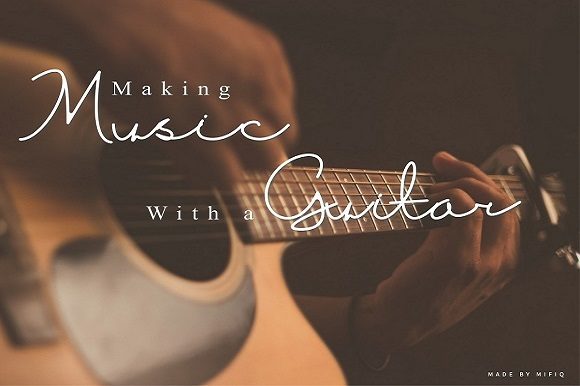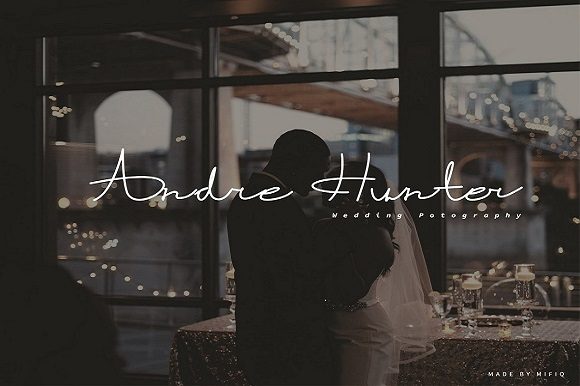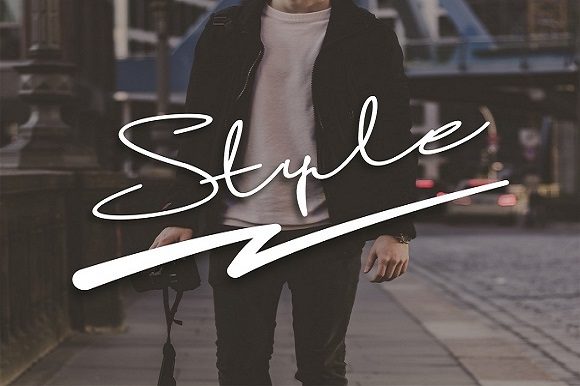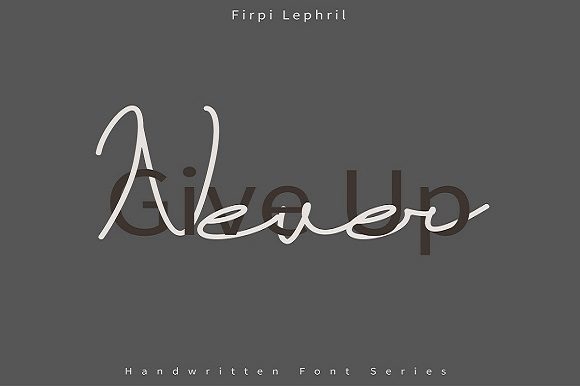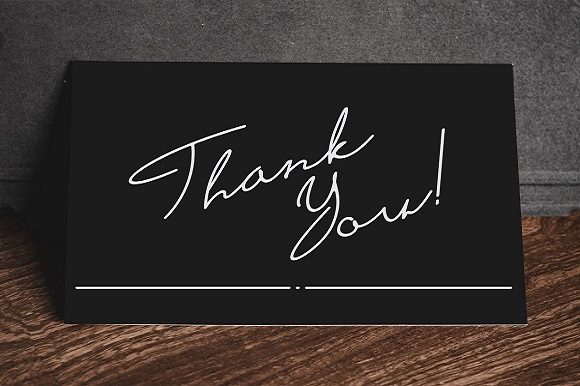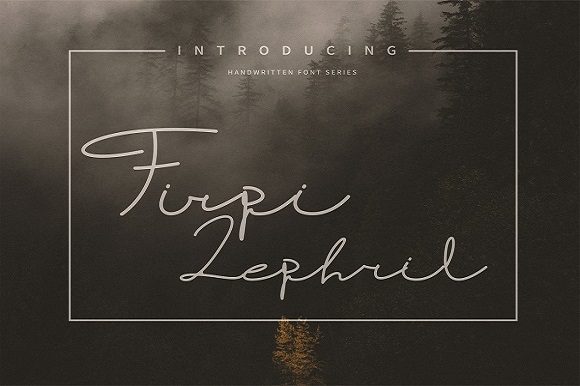
Firpi Lephril Font: Elevate Your Designs with Elegance and Timeless Style
In the world of typography, few fonts manage to capture the essence of elegance and timelessness. However, Firpi Lephril stands out as a beacon of sophistication, offering a flowing handwritten style that is both distinct and captivating. This beautiful font is designed to add a touch of class to your favorite projects, making it a must-have for designers and crafters looking to elevate their creations.
The Essence of Firpi Lephril
Firpi Lephril is more than just a font; it’s an experience. Its flowing lines and elegant touch evoke a sense of luxury and refinement, perfect for projects that demand a high level of sophistication. Whether you’re working on a branding project, a wedding invitation, or a packaging design, Firpi Lephril is sure to make a lasting impression.
Key Features of Firpi Lephril
- Elegant and Flowing Script: Firpi Lephril boasts a beautiful, cursive script that flows effortlessly across the page, creating a sense of movement and fluidity.
- Distinct and Timeless Style: Its unique and classic design ensures that your projects stand out from the crowd, while also remaining relevant for years to come.
- Versatility: Firpi Lephril is incredibly versatile, making it suitable for a wide range of projects, from digital designs to print materials.
- Easy to Read: Despite its elegant nature, Firpi Lephril remains highly legible, ensuring that your message is communicated clearly and effectively.
Firpi Lephril is a dream come true for designers and crafters looking to add a touch of elegance to their projects. Its unique style and versatility make it an ideal choice for:
- Branding and Logo Design: Create a lasting impression with a font that exudes sophistication and luxury.
- Wedding and Event Invitations: Add a touch of romance and elegance to your invitations and stationery.
- Packaging Design: Elevate your product packaging with a font that stands out on store shelves.
- Digital Designs: Use Firpi Lephril to create stunning social media graphics, blog headers, and more.
Tips for Using Firpi Lephril
To get the most out of Firpi Lephril, consider the following tips:
- Pair with Contrasting Fonts: Combine Firpi Lephril with a sans-serif font to create visual interest and hierarchy.
- Experiment with Colors: Try pairing Firpi Lephril with rich, bold colors to add depth and luxury to your designs.
- Play with Size and Scale: Use Firpi Lephril in a variety of sizes to create visual interest and emphasis.
| Font Name | Firpi Lephril Font |
| Author | Mifiq |
Firpi Lephril is a truly exceptional font that offers a unique blend of elegance, sophistication, and timelessness. Whether you’re a designer or crafter, this beautiful font is sure to elevate your projects and leave a lasting impression. With its flowing script, distinct style, and versatility, Firpi Lephril is a must-have addition to your typography collection.